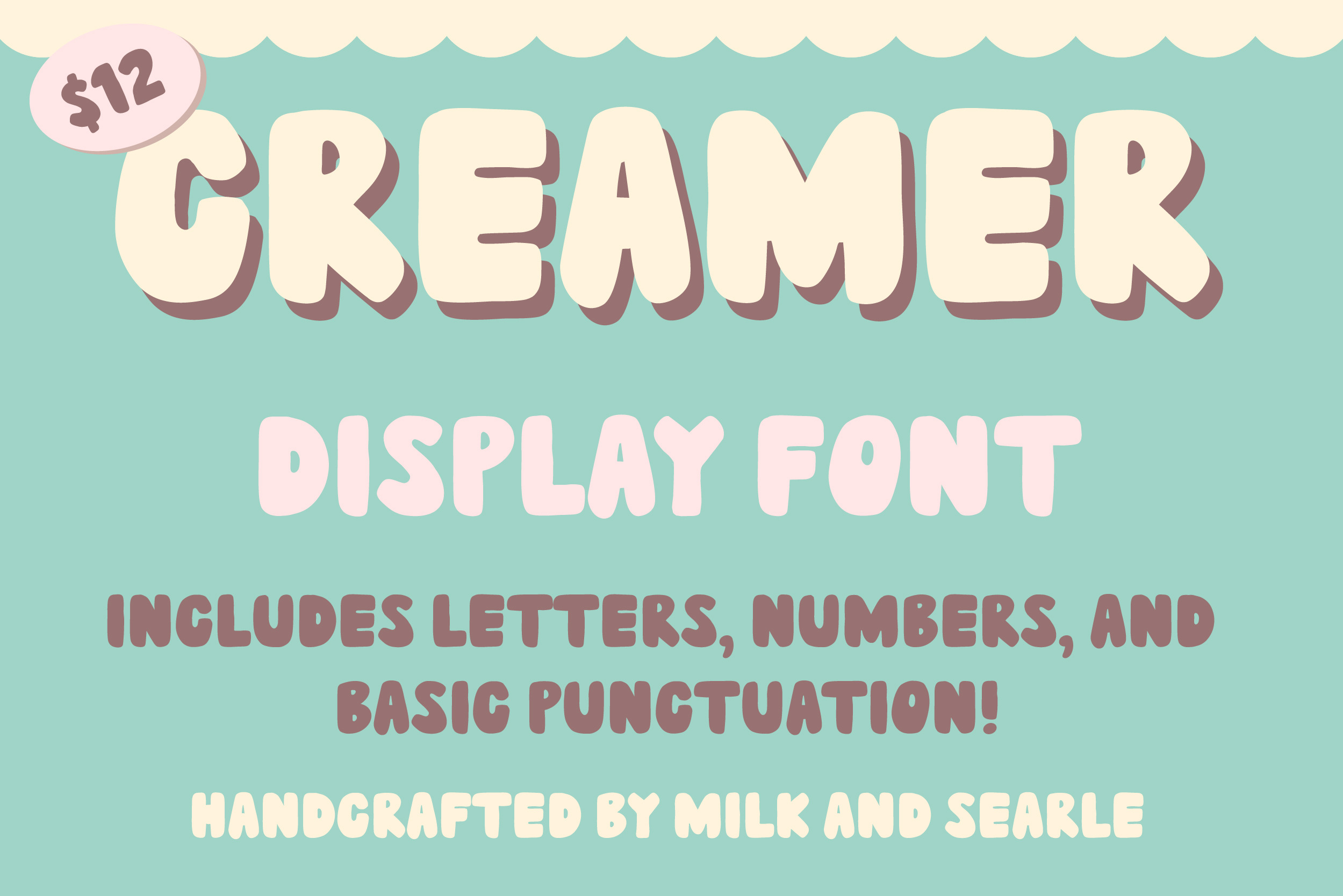
Creamer Display Font
Introducing Creamer, a display font by Milk and Searle. This font is inspired by coffee creamer, bakery, and good old fashioned sweet treats. Handmade, handcrafted, not perfect, just right.
Includes A-Z, numbers, punctuation and some symbols. All included glyphs are shown in the images.